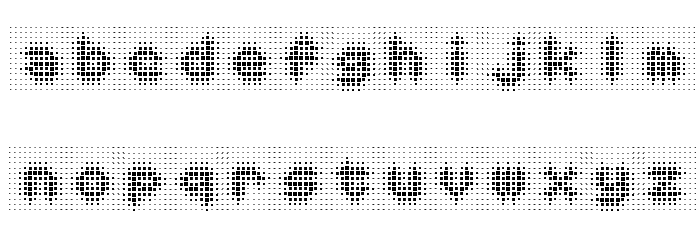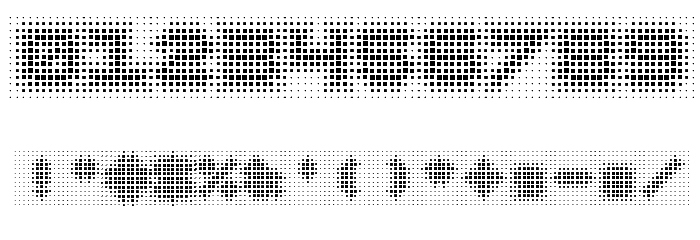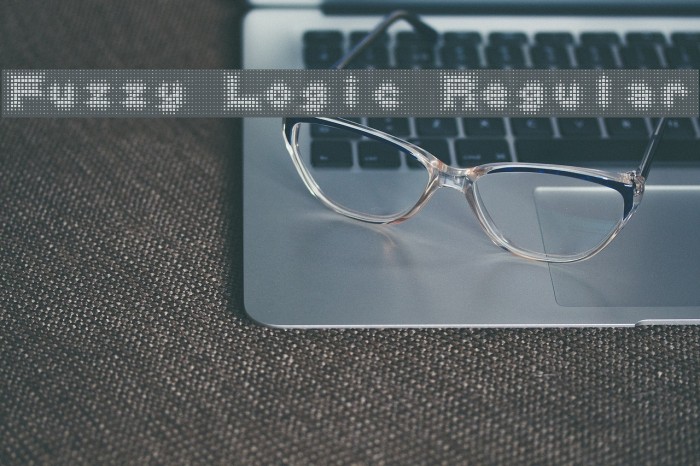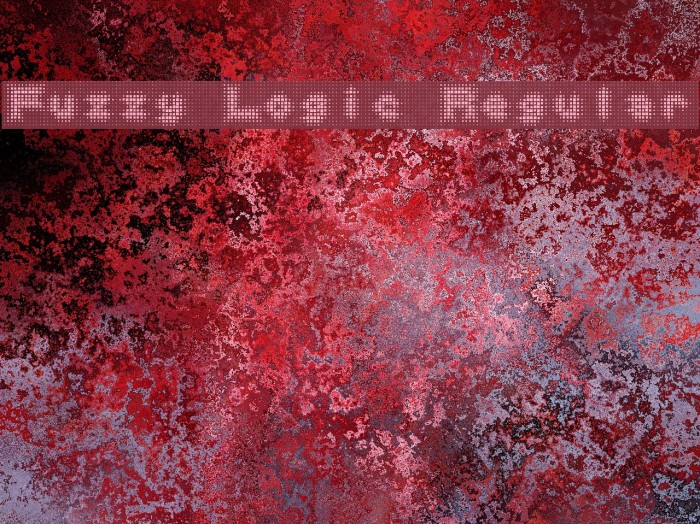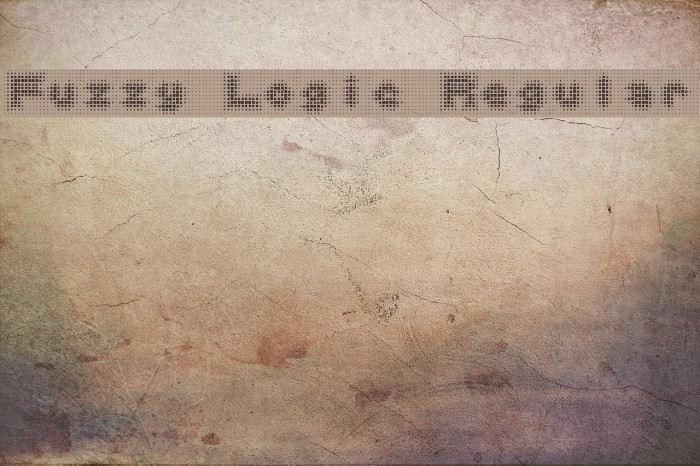
Fuzzy Logic Regular Font
This font features a unique dot-matrix style, reminiscent of digital displays and retro computing aesthetics. Each character is composed of a grid of dots, creating a pixelated effect that is both modern and nostalgic. The uppercase and lowercase letters maintain a consistent design, with clear differentiation between each character. Numbers and special characters follow the same dot pattern, ensuring uniformity across all glyphs. This font's distinct appearance makes it ideal for projects that require a digital or futuristic theme, while its readability remains intact despite the unconventional design.
A dot-matrix style font with a digital, retro aesthetic.
- Proposed Projects: Ideal for digital-themed designs, retro video game graphics, tech-related branding, and futuristic posters.
- Use Case: Logos, Posters, Digital displays